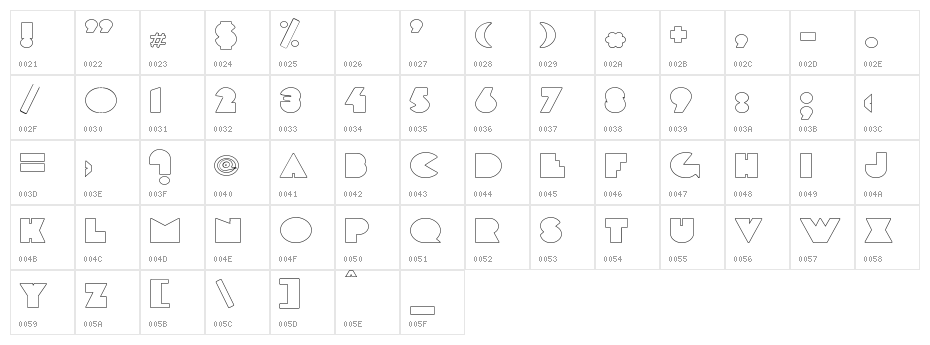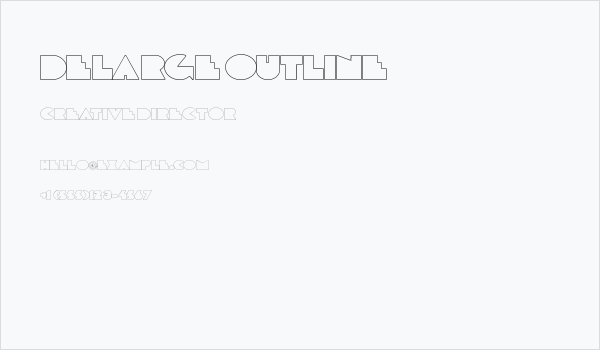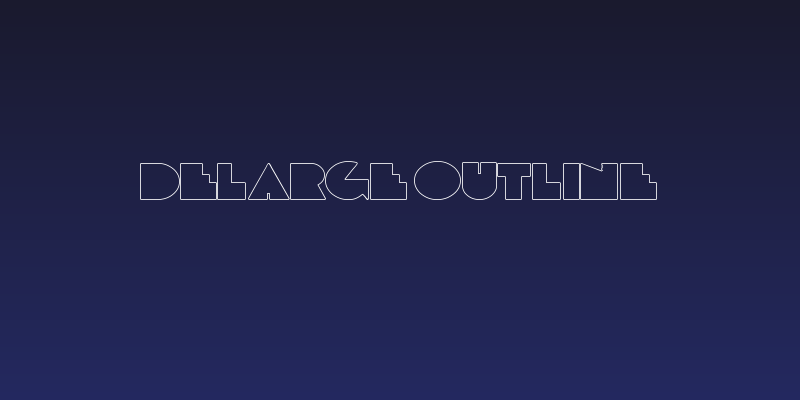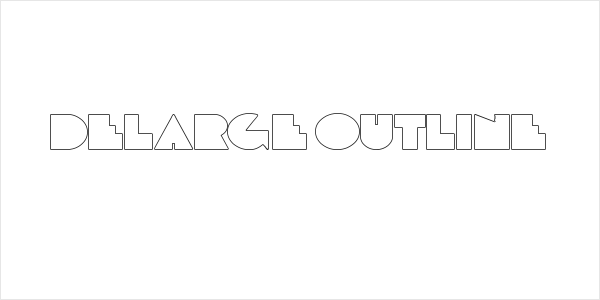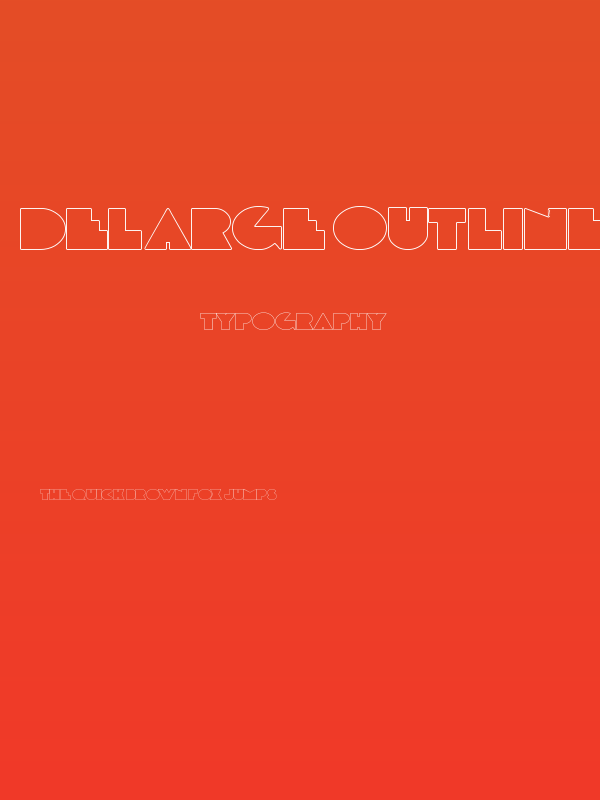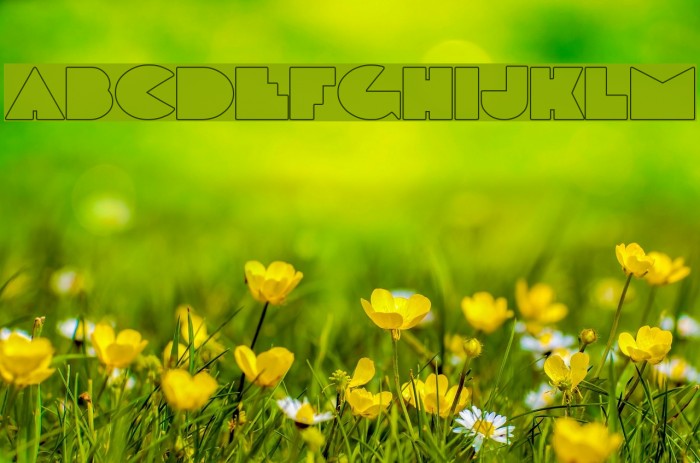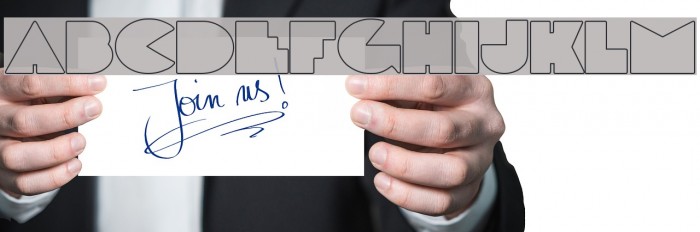
DeLarge Outline Font
DeLarge Outline Description
This font features a bold, geometric outline style with sharp angles and clean lines, creating a striking and modern appearance. The uppercase and lowercase letters maintain a consistent width, giving the font a uniform look. The numbers and special characters follow the same design principles, ensuring a cohesive appearance across all elements. The outline nature of the font adds a unique dimension, making it suitable for eye-catching designs. Its distinct style is ideal for projects that require a contemporary and bold statement.
| Proposed Projects | Ideal for posters, logos, headlines, and modern branding projects. |